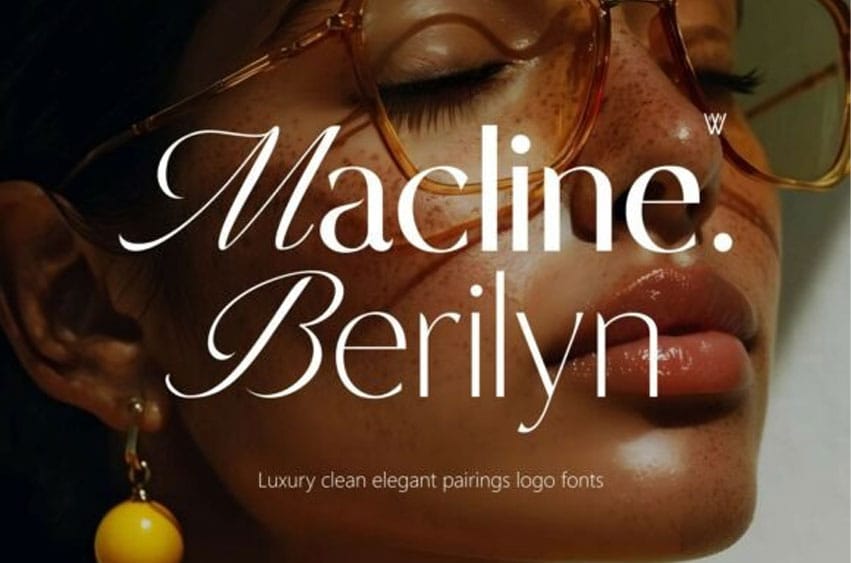
Macline Berilyn Font is a luxury serif and sans-serif pairing designed for sophisticated branding and editorial applications.
The serif style features elegant contrast and graceful curves, while the accompanying sans-serif adds balance with its clean, minimal lines. Together, they form a versatile typographic duo suitable for refined modern compositions.
Each glyph in Macline Berilyn showcases precise geometry, smooth terminals, and consistent rhythm that enhance readability and visual harmony. This font pairing is ideal for fashion branding, beauty packaging, and minimalist logo design, offering a blend of timeless sophistication and modern clarity.
Perfect for premium branding, high-end logo design, fashion editorials, magazine headlines, and packaging that demands elegance. Every curve of Macline Berilyn was crafted to deliver exclusivity, confidence, and visual harmony — ideal for designers aiming to create unforgettable brand identities.
Macline Berilyn Font Features:
Elegant serif and modern script combination
Beautiful ligatures and alternates
Clean, stylish, and sophisticated look
Ideal for logos, magazines, packaging, and luxury branding.